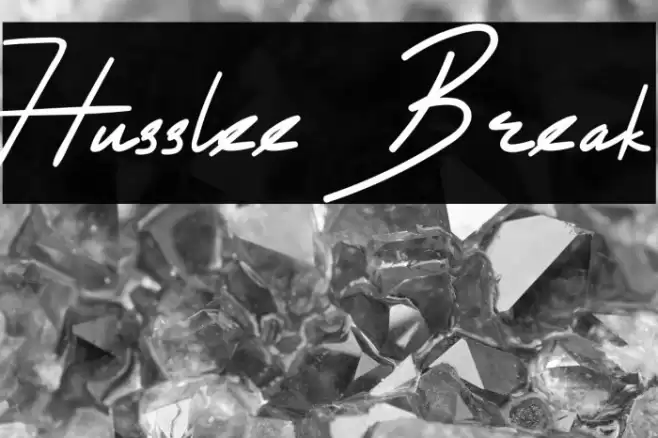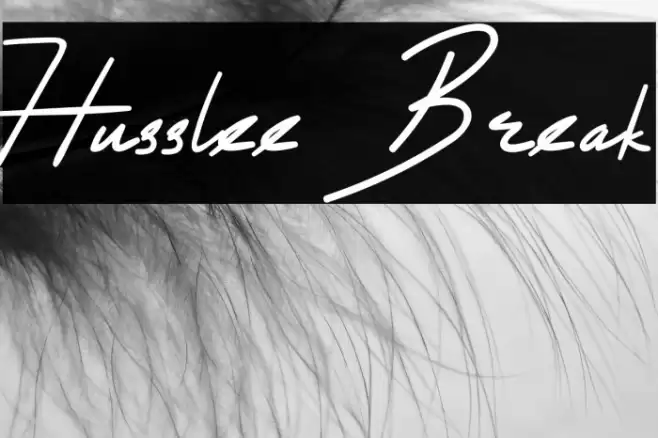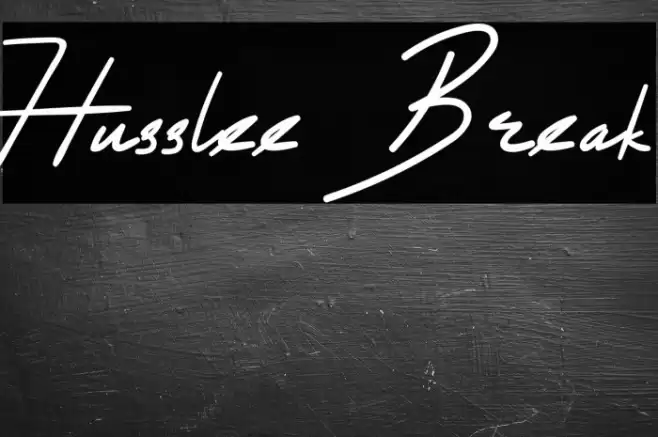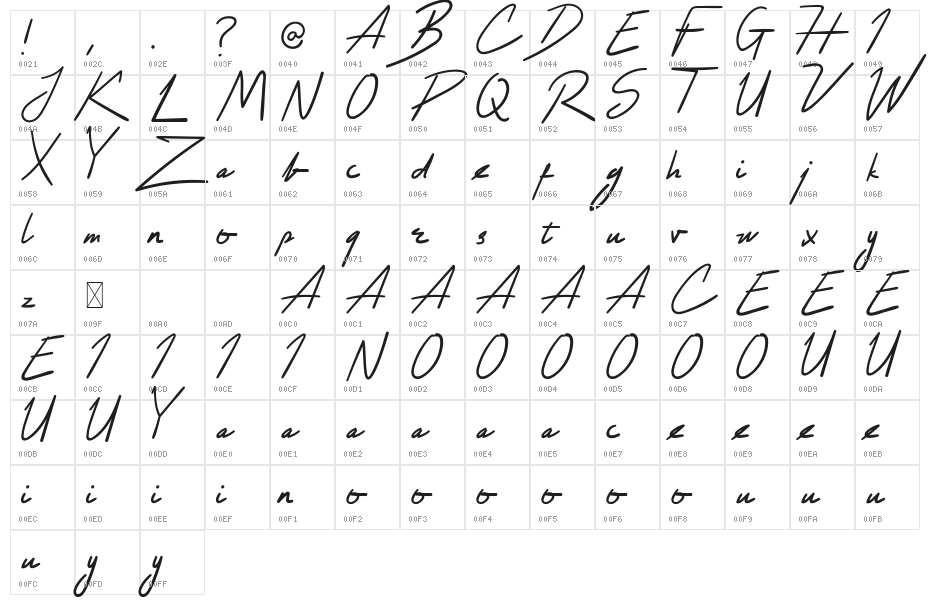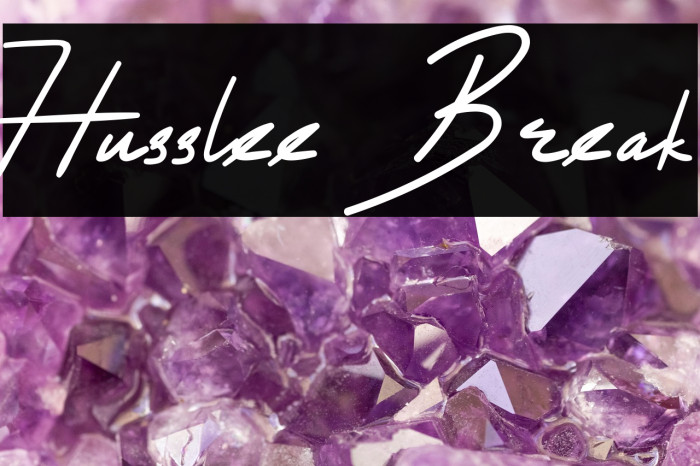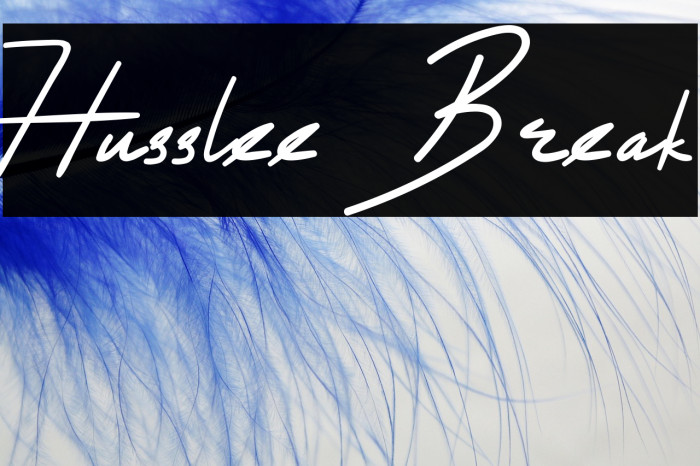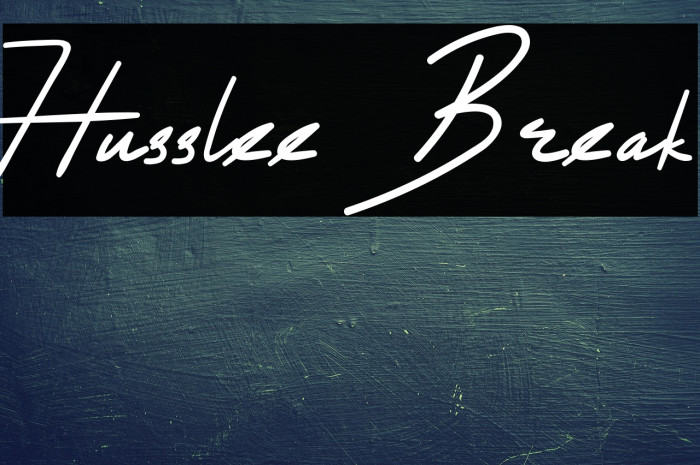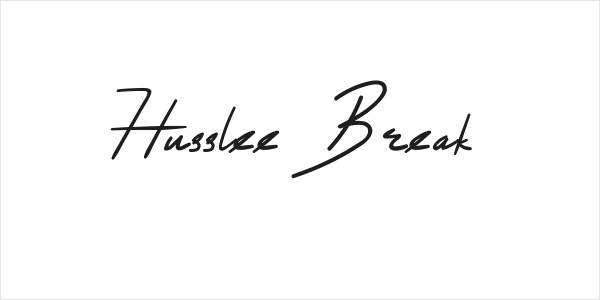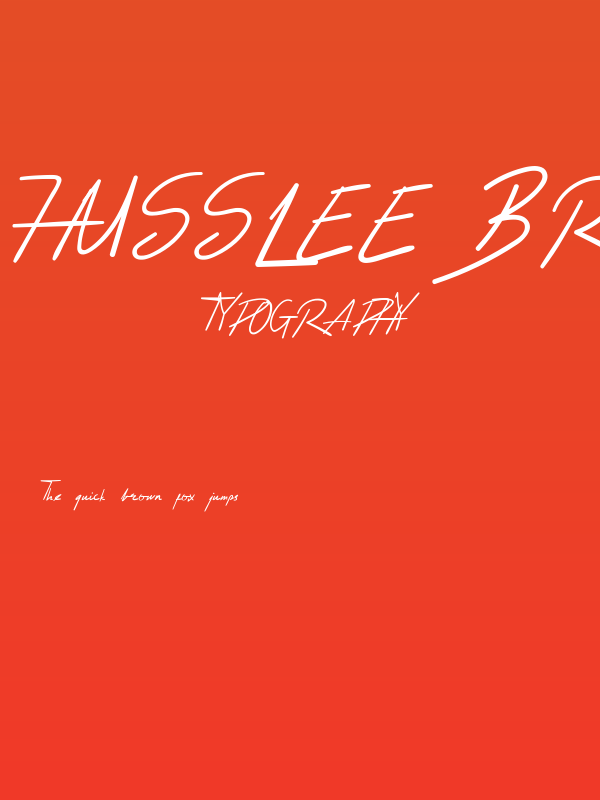
Husslee Break Font
Husslee Break Description
This font features a dynamic, handwritten style with a fluid and energetic appearance. The letters are slanted, giving a sense of motion and speed, reminiscent of quick, expressive handwriting. The strokes vary in thickness, adding a lively and spontaneous feel to the text. The uppercase and lowercase letters maintain a consistent style, with some characters featuring distinctive loops and curves. The overall look is casual yet sophisticated, making it suitable for projects that require a personal touch.
A dynamic, handwritten font with fluid, slanted strokes from Regular fonts.
- Font: Husslee Break
- Proposed Projects: Ideal for branding, invitations, greeting cards, and creative projects that require a personal, expressive touch.
- Use Case: Logos, Invitations, Greeting Cards